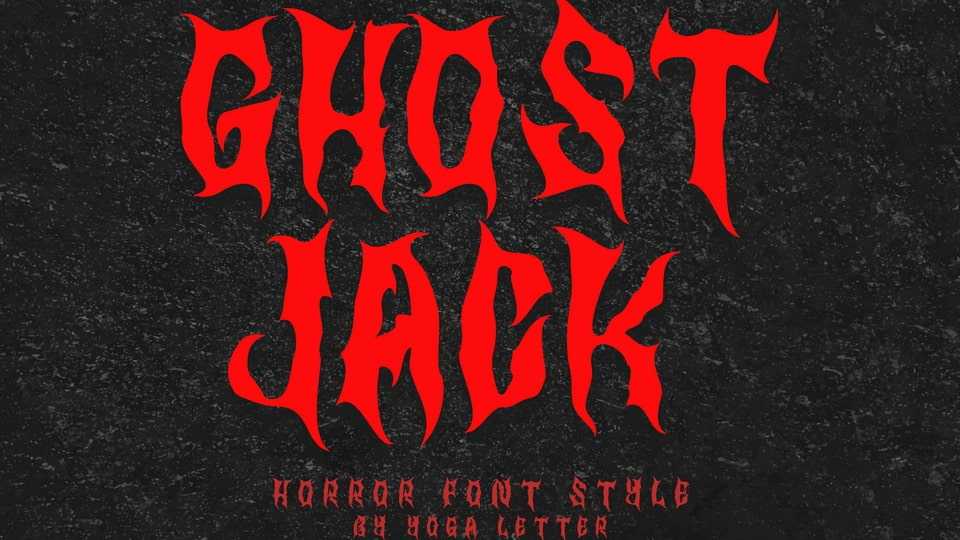
Download Ghost Jack font, a unique horror display typeface. It’s perfect for horror movies, Halloween, banners, posters, print, branding, stickers, logos, Procreate, sublimation, and more.